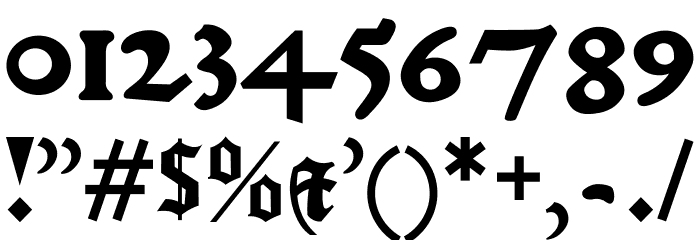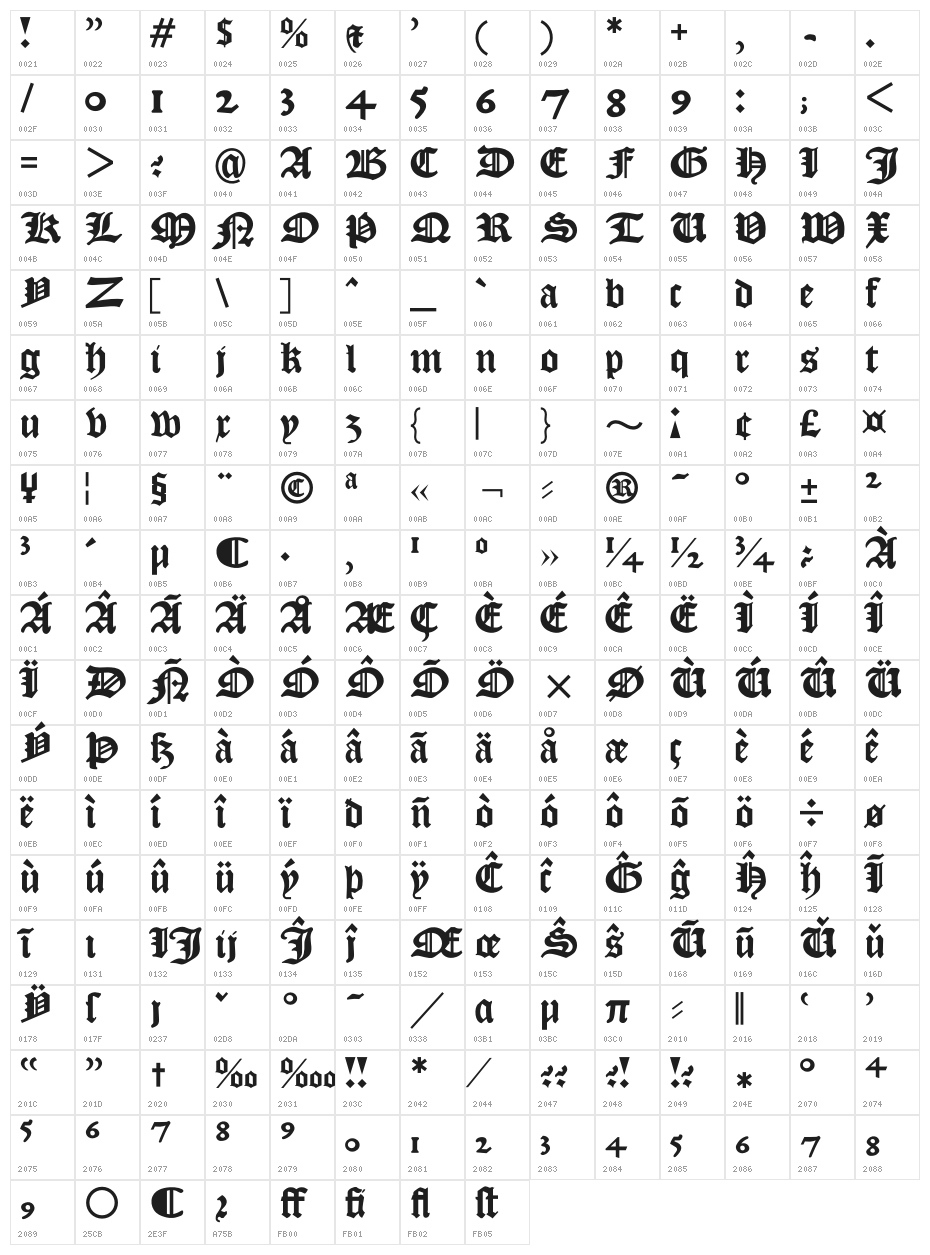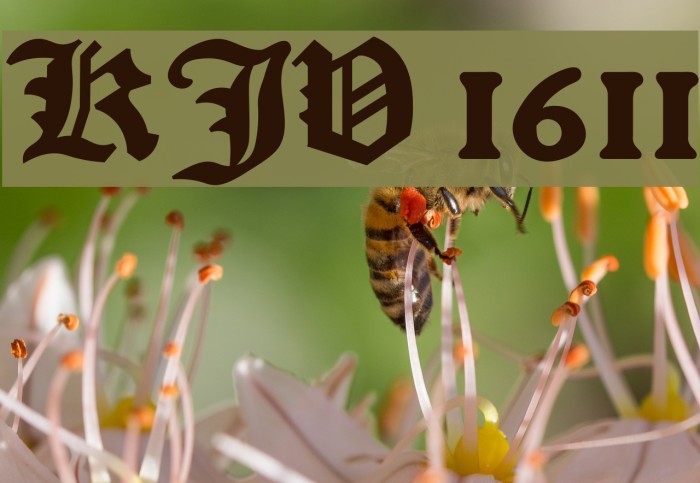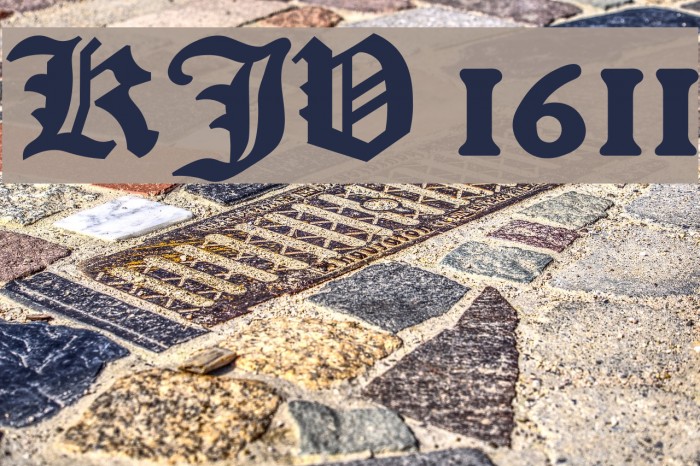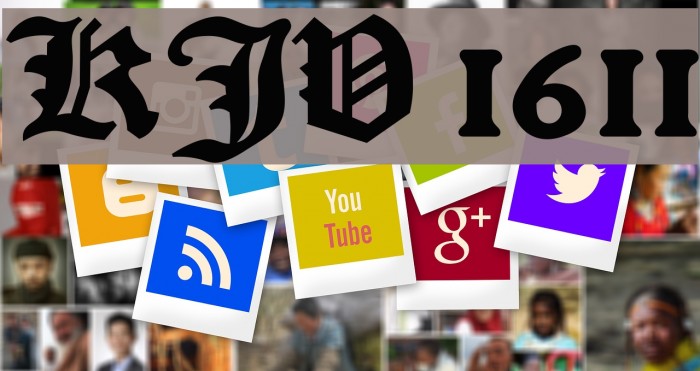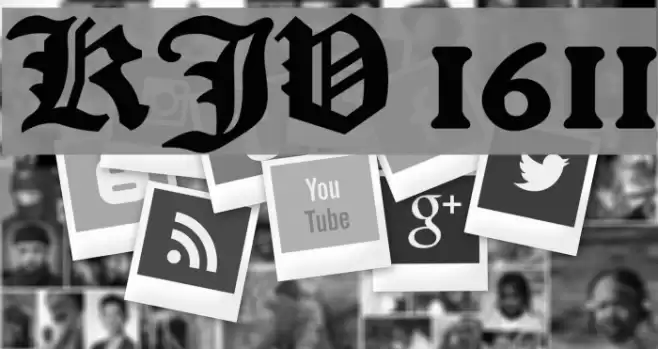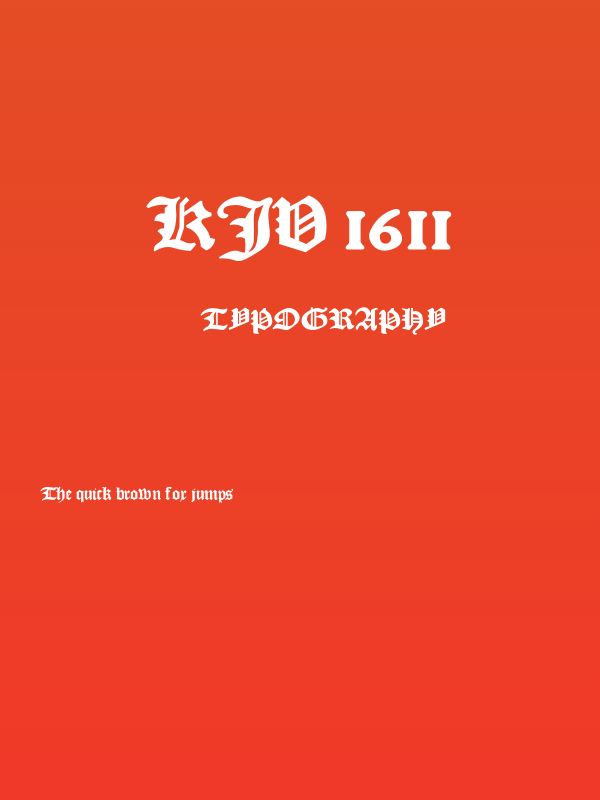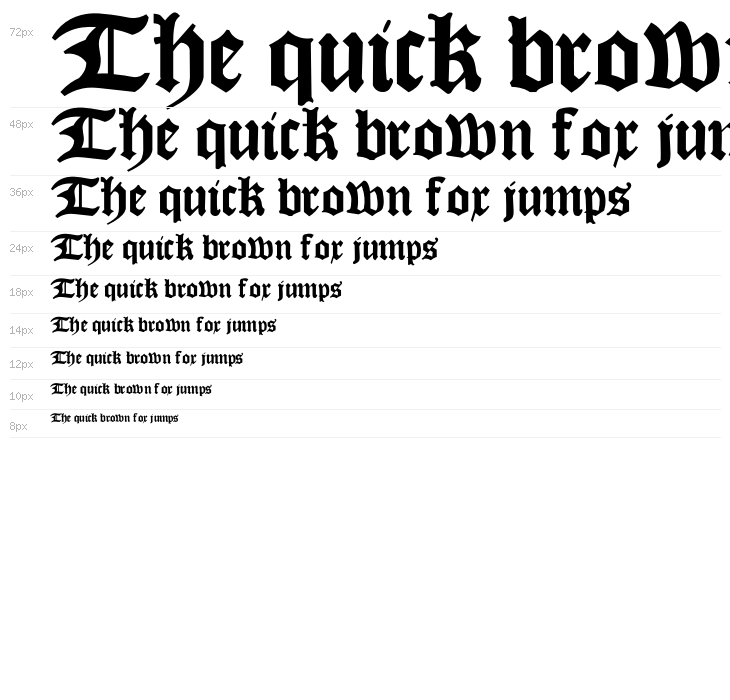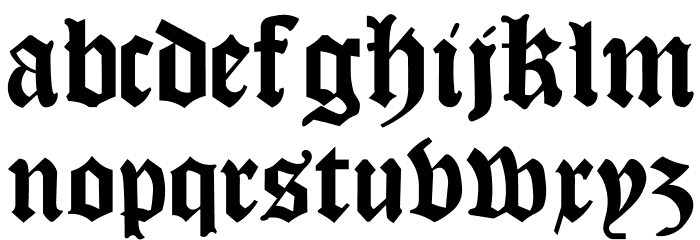
KJV 1611 Font
KJV 1611 Description
This font is a classic example of Blackletter typography, characterized by its intricate and ornate design. The uppercase letters feature sharp, angular lines with dramatic flourishes, while the lowercase letters maintain a consistent style with slightly more rounded forms. The numerals are bold and distinct, complementing the overall medieval aesthetic. Special characters are designed with the same attention to detail, enhancing the font's historical feel. This typeface evokes a sense of tradition and formality, often associated with historical documents and old-world charm.
| Use Case | Headlines, Logos, Decorative purposes |
| Proposed Projects | Ideal for projects requiring a historical or medieval theme, such as book covers, posters, or branding for vintage-inspired products. |